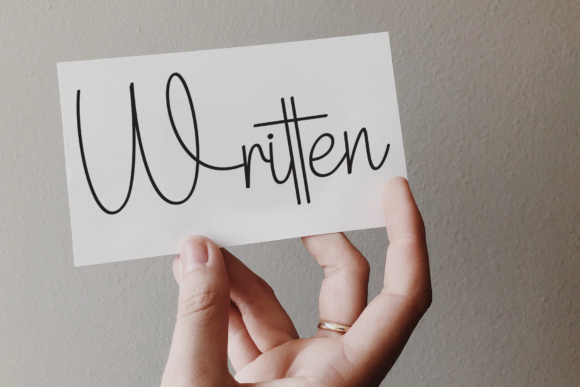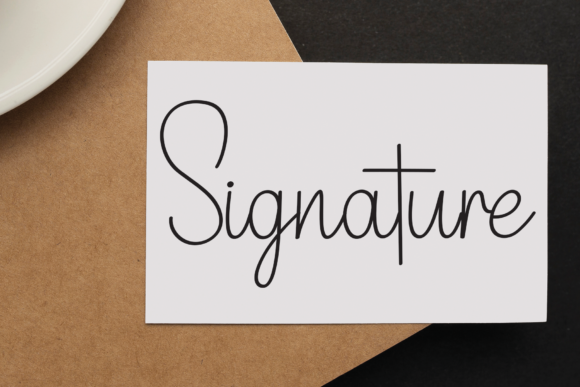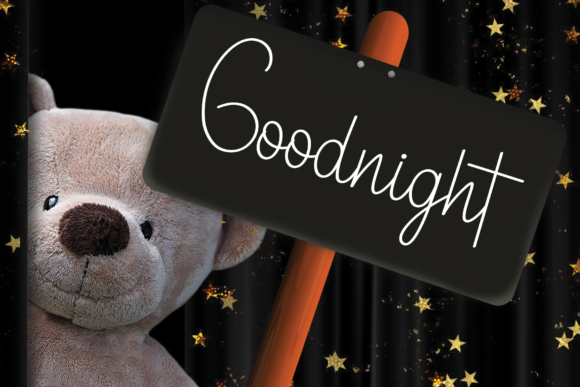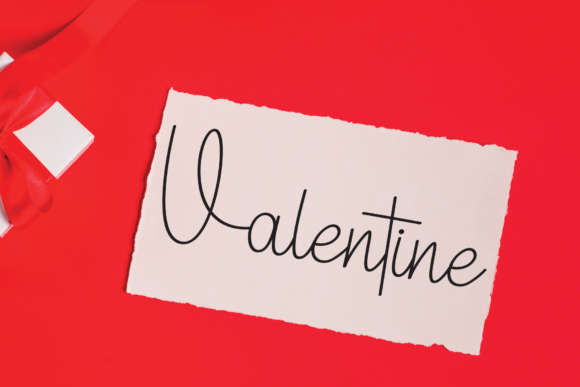
The Perfect Script for Your Special Moments
Do you remember the moment when you found the perfect font for your wedding invitation or baby shower announcement? The one that captured the essence of your special day and made it truly unforgettable? For designers, finding that perfect font can be a game-changer, and that’s exactly what the Best Friends Font delivers.
This beautiful script font is designed to add a touch of romance and elegance to any project. With its stunning curves and intricate details, it’s sure to make your designs stand out. And with its PUA coding, you can easily access all the glyphs and sweeps, making it a breeze to use. Whether you’re a seasoned designer or just starting out, the Best Friends Font is a valuable addition to your toolkit.
- Unique Characteristics: The Best Friends Font features a friendly, approachable, and modern design, making it perfect for informal and social media content.
- Kerning and Glyphs: The font includes advanced kerning and a comprehensive set of glyphs, ensuring smooth text rendering and minimizing typographic errors.
Designer Review: Best Friends Font
When I first stumbled upon the “Best Friends Font”, I was immediately drawn to its playful and energetic vibe ✨. The font’s mix of bold and cursive elements creates a unique aesthetic that’s perfect for adding a touch of whimsy to designs. The font’s rounded edges and soft curves make it a great choice for projects that require a friendly and approachable feel.
One of the standout features of the “Best Friends Font” is its versatility ✨. It can be used for a wide range of projects, from children’s book illustrations to social media graphics and even product branding. The font’s adaptability makes it a great addition to any designer’s toolkit.
While the “Best Friends Font” has a lot of great qualities, there are some limitations to consider ⚠️:
- Limited character set: The font’s character set is relatively small, which may limit its use for certain types of projects.
- Not ideal for long blocks of text: The font’s playful nature makes it better suited for short bursts of text, rather than long blocks of text.
In conclusion, the “Best Friends Font” is a fun and versatile font that’s perfect for adding a touch of personality to designs ✨. While it may have some limitations, its unique aesthetic and adaptability make it a great addition to any designer’s toolkit. I would highly recommend it for projects that require a playful and energetic feel.
The Best Friends Font is perfect for creating playful and friendly designs, such as:
- Invitations and party decorations
- Personalized gifts and cards
- Blog posts and social media graphics